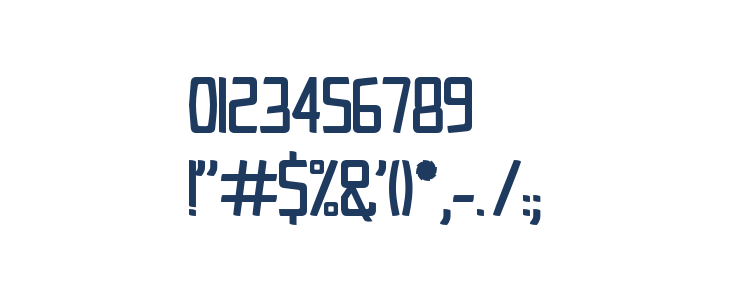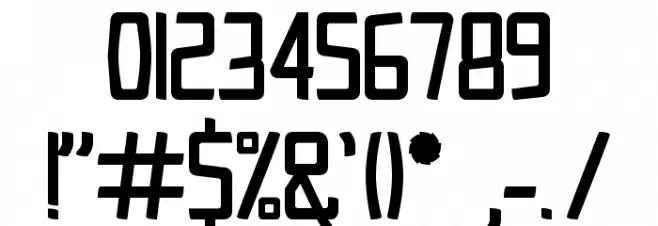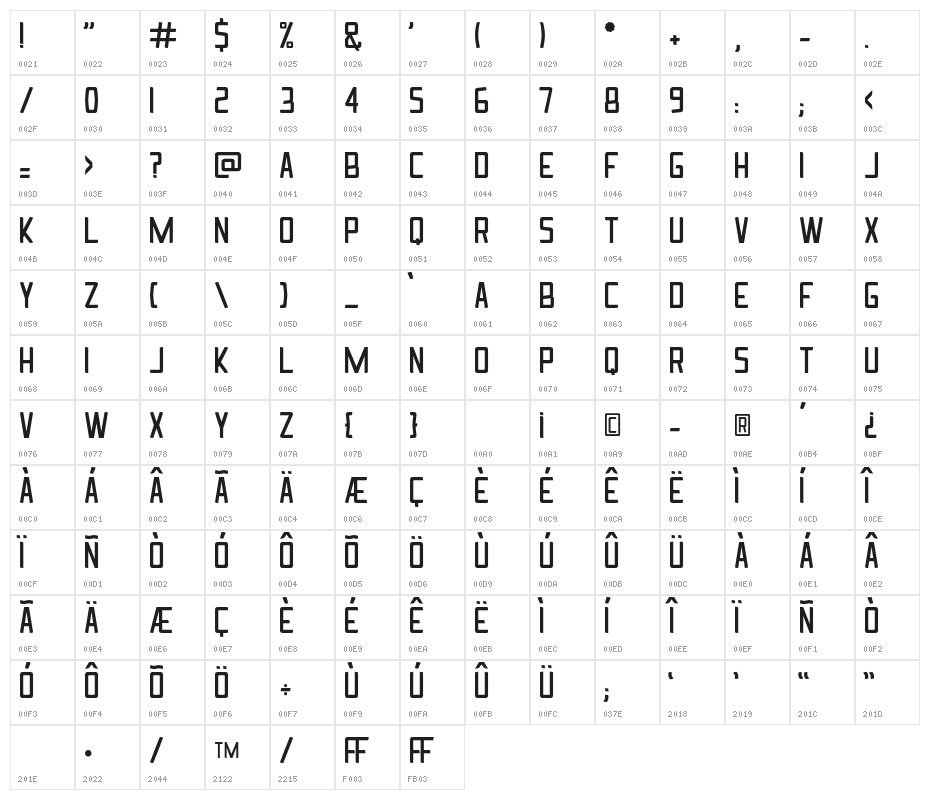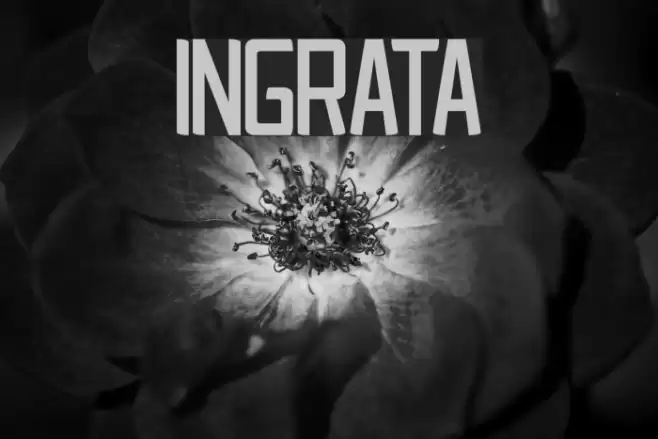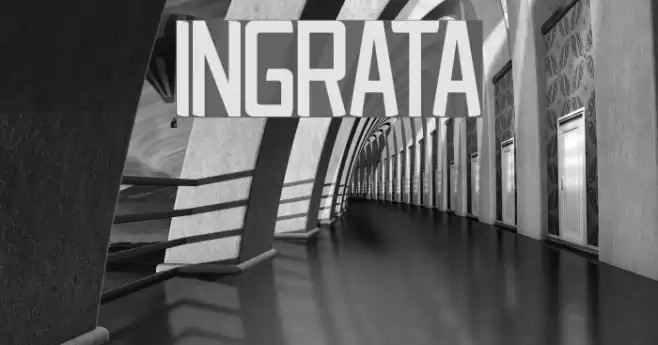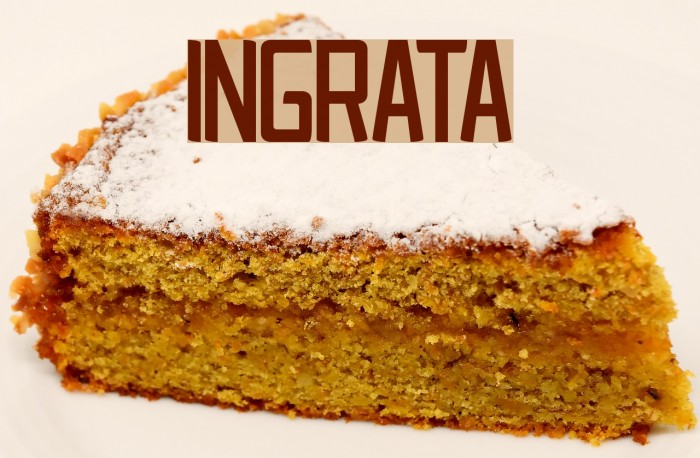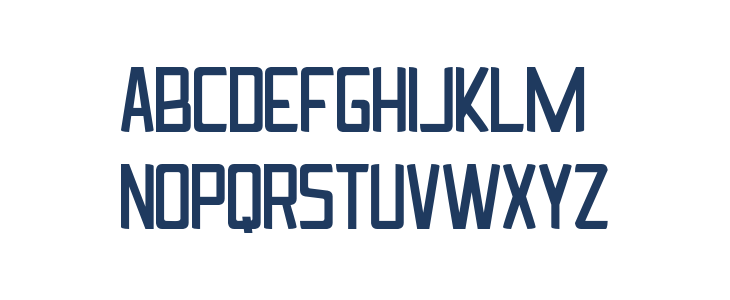
Ingrata Font
Ingrata Description
This font features a bold, geometric design with a modern and slightly futuristic aesthetic. The characters are constructed with straight lines and sharp angles, giving it a distinct and assertive appearance. The uppercase letters are particularly striking, with a uniform height and width that create a cohesive look. The numbers and special characters maintain the same boldness and geometric style, ensuring consistency across all elements. This font's strong presence makes it ideal for attention-grabbing designs.